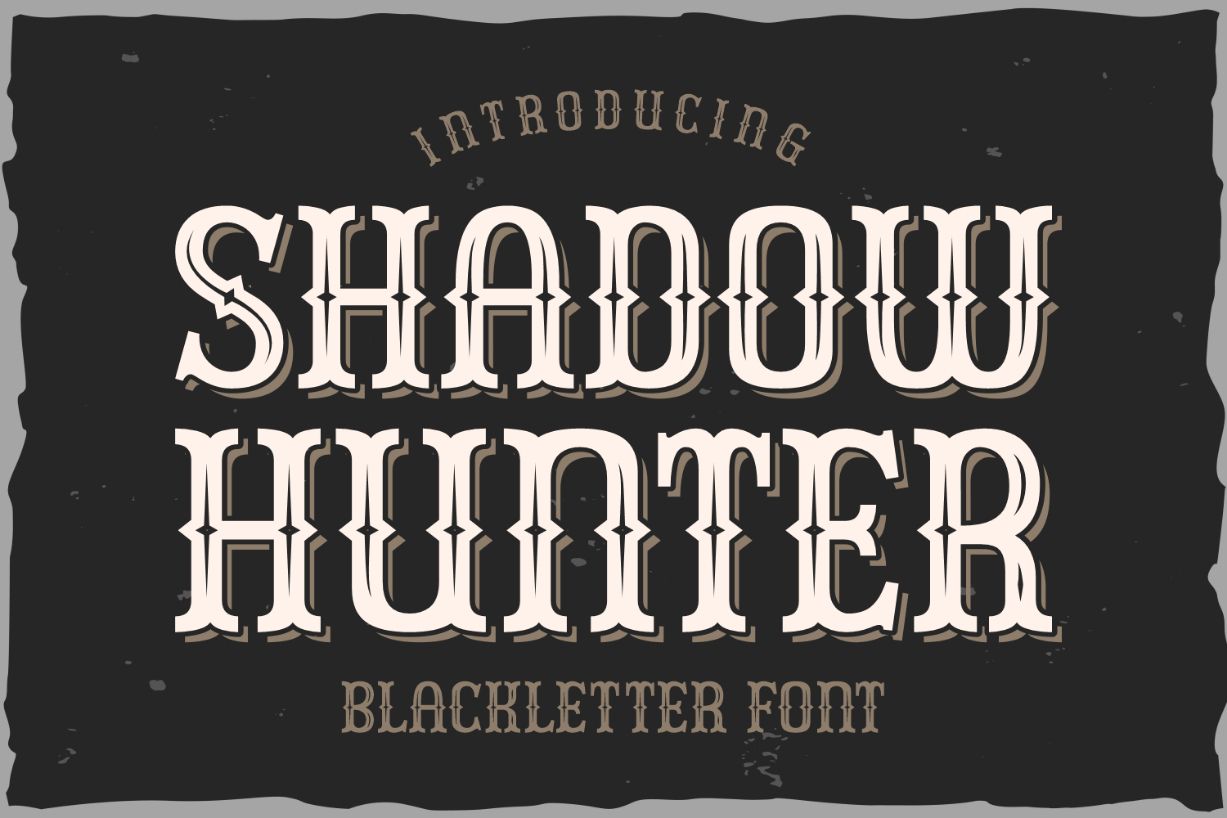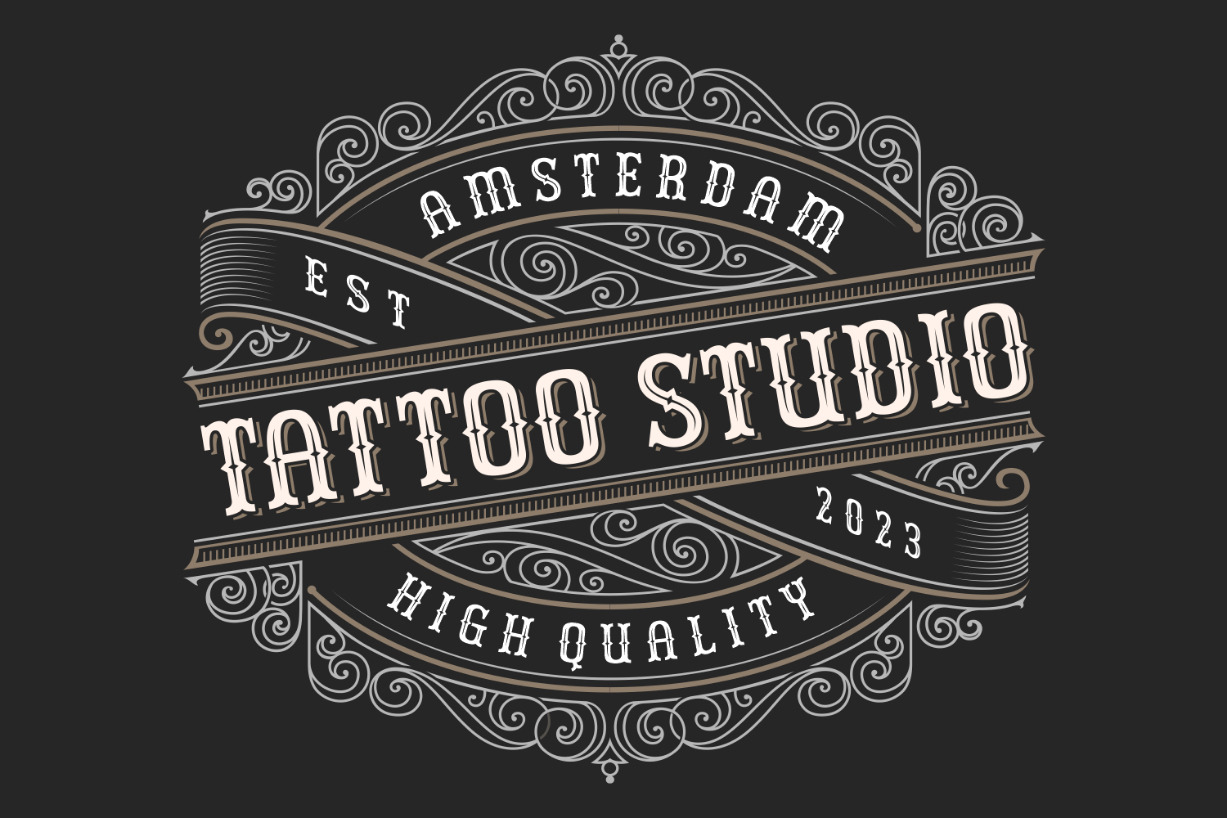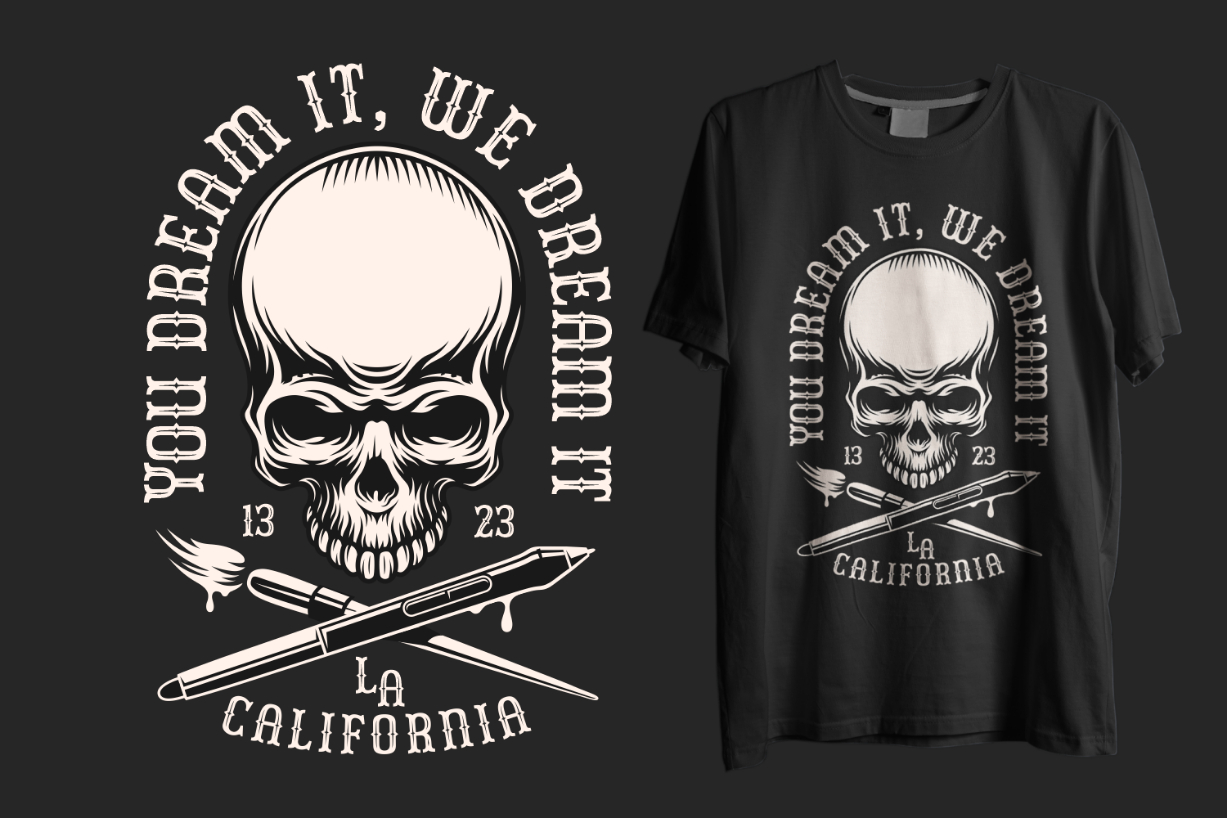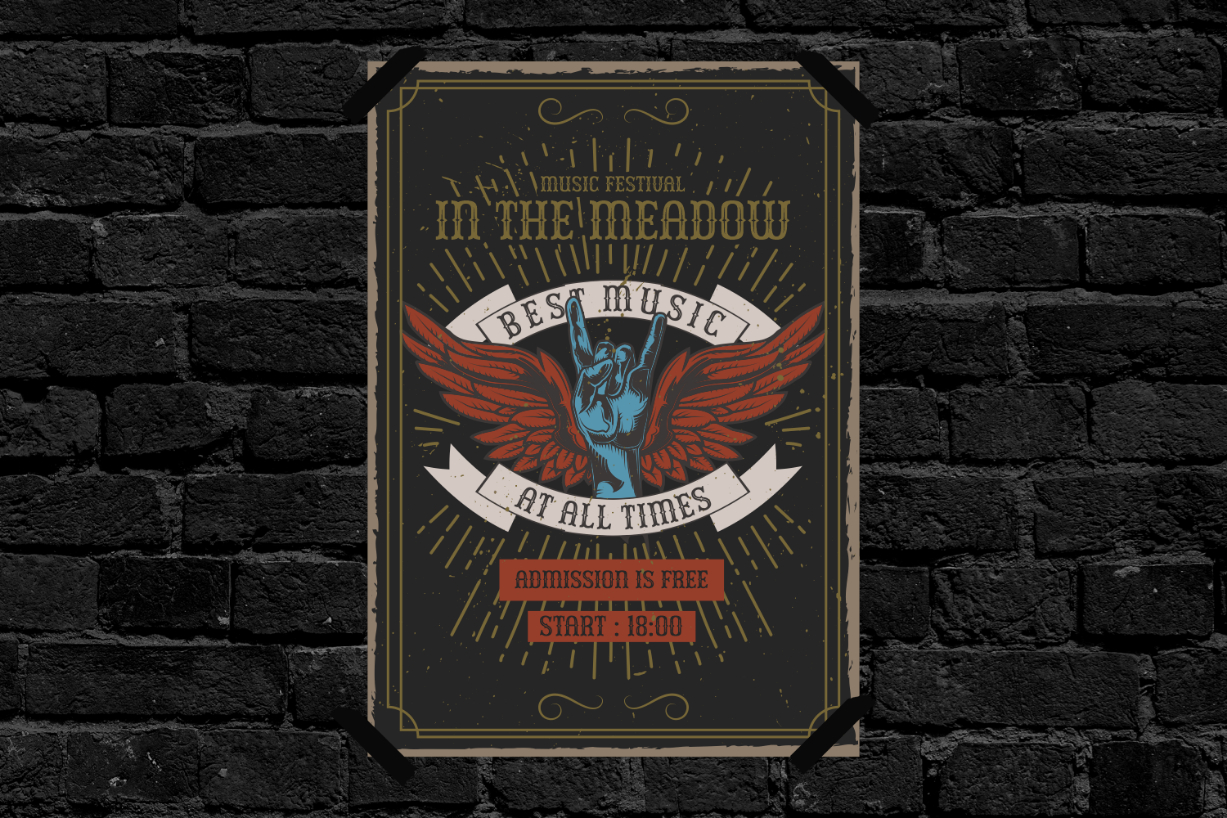
Shadow Hunter Font
About Shadow Hunter Font
Shadow Hunter is an excellent blackletter font. Add a striking look to your typography designs with this outstanding typeface that will take your project to the highest level! It looks fabulous on posters, advertisements, logos, t-shirts, headers, titles, and more.